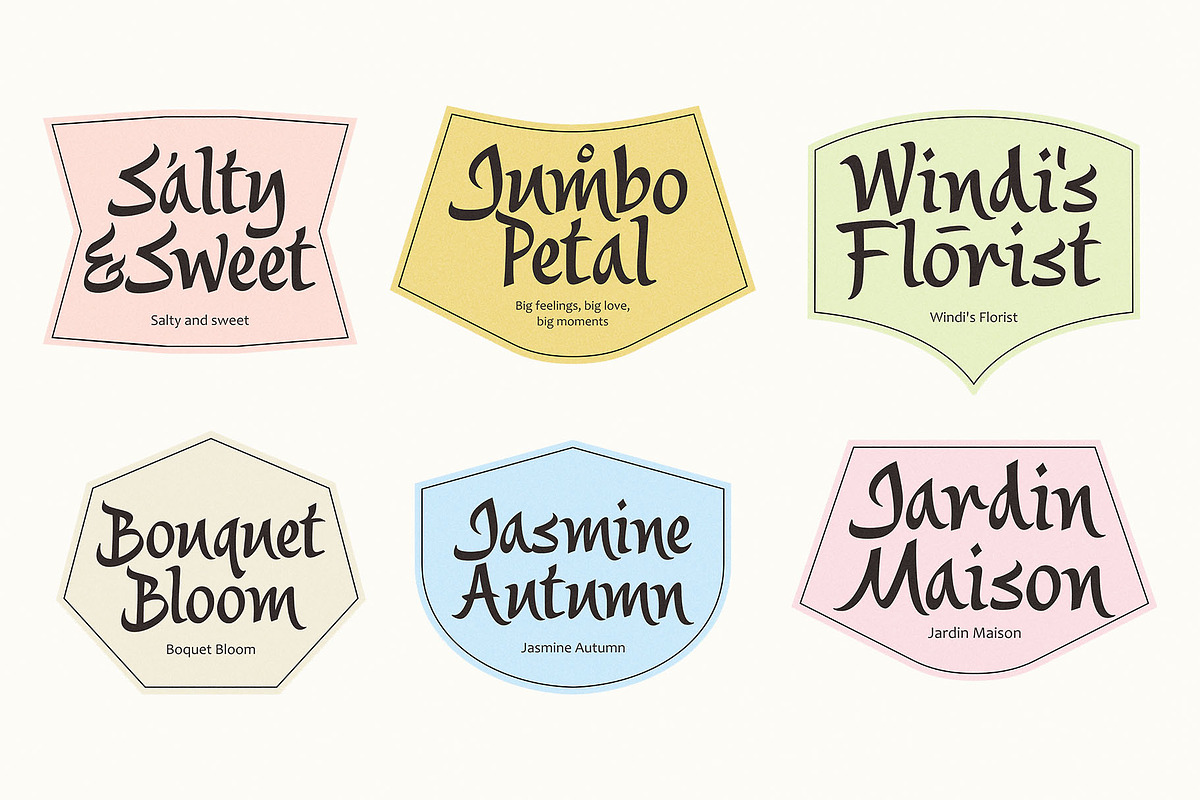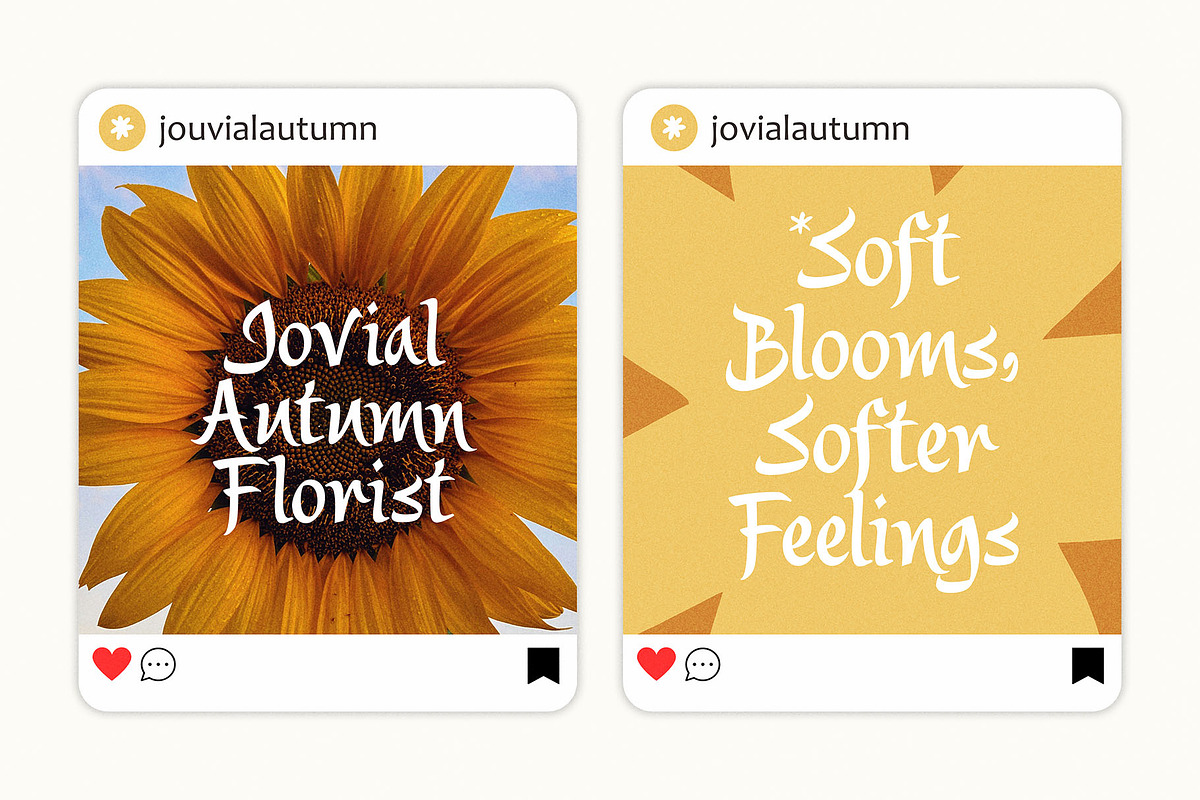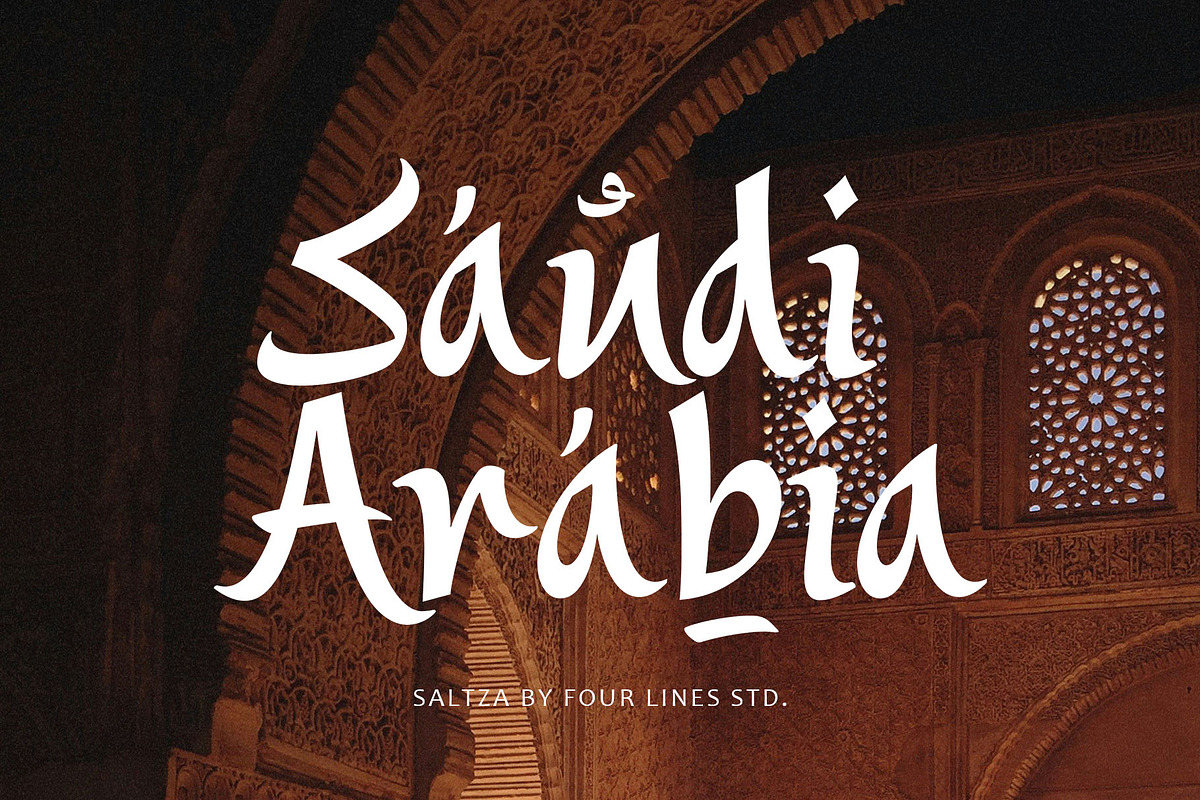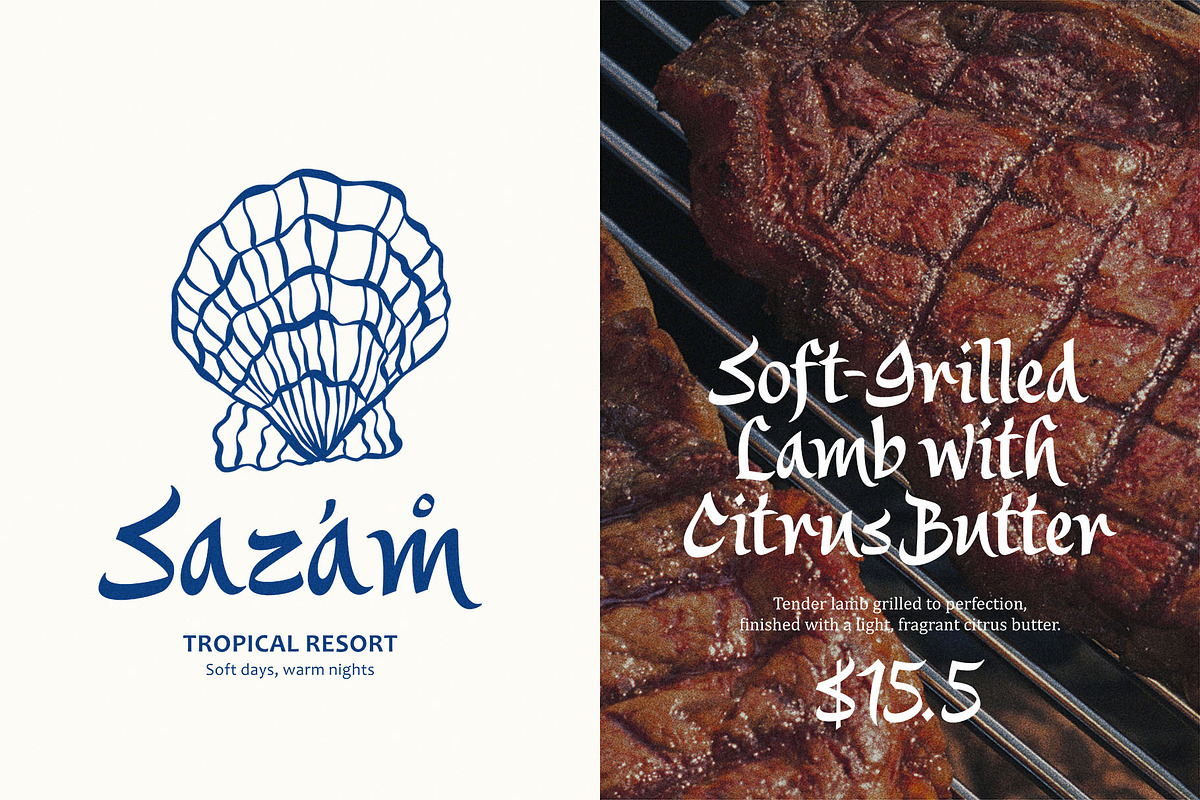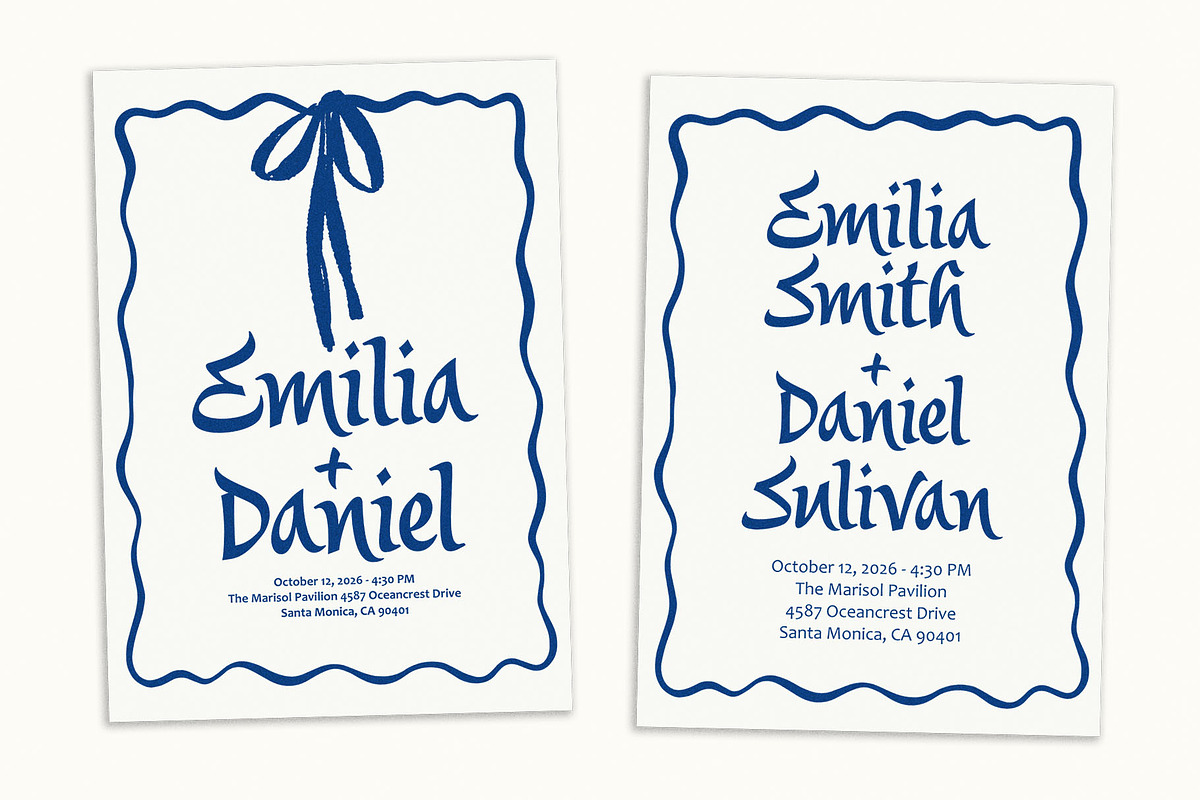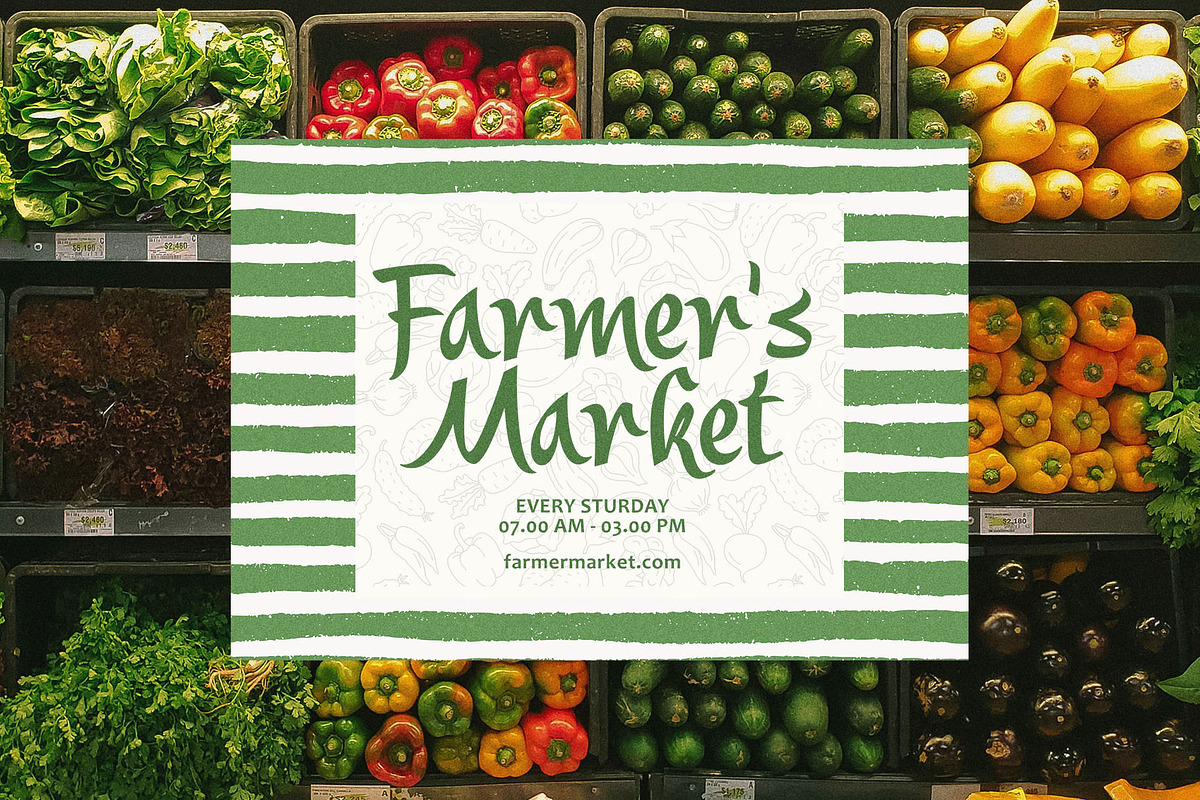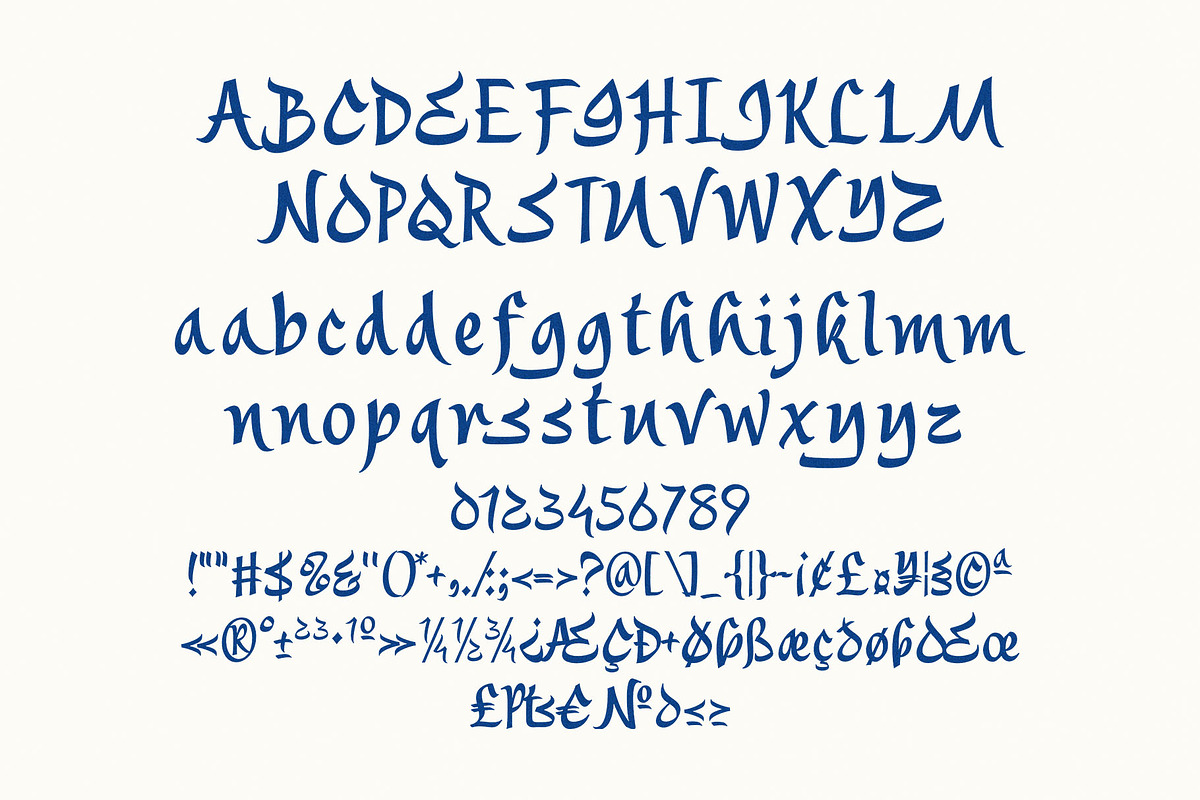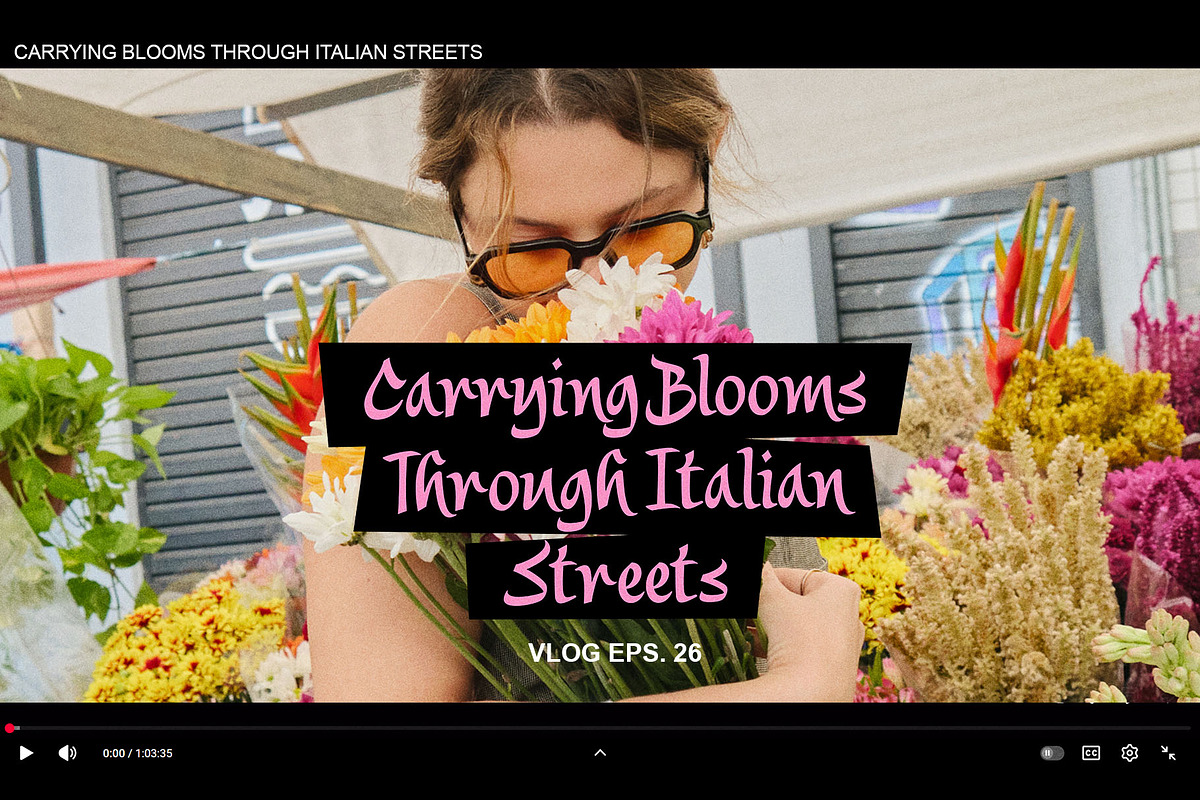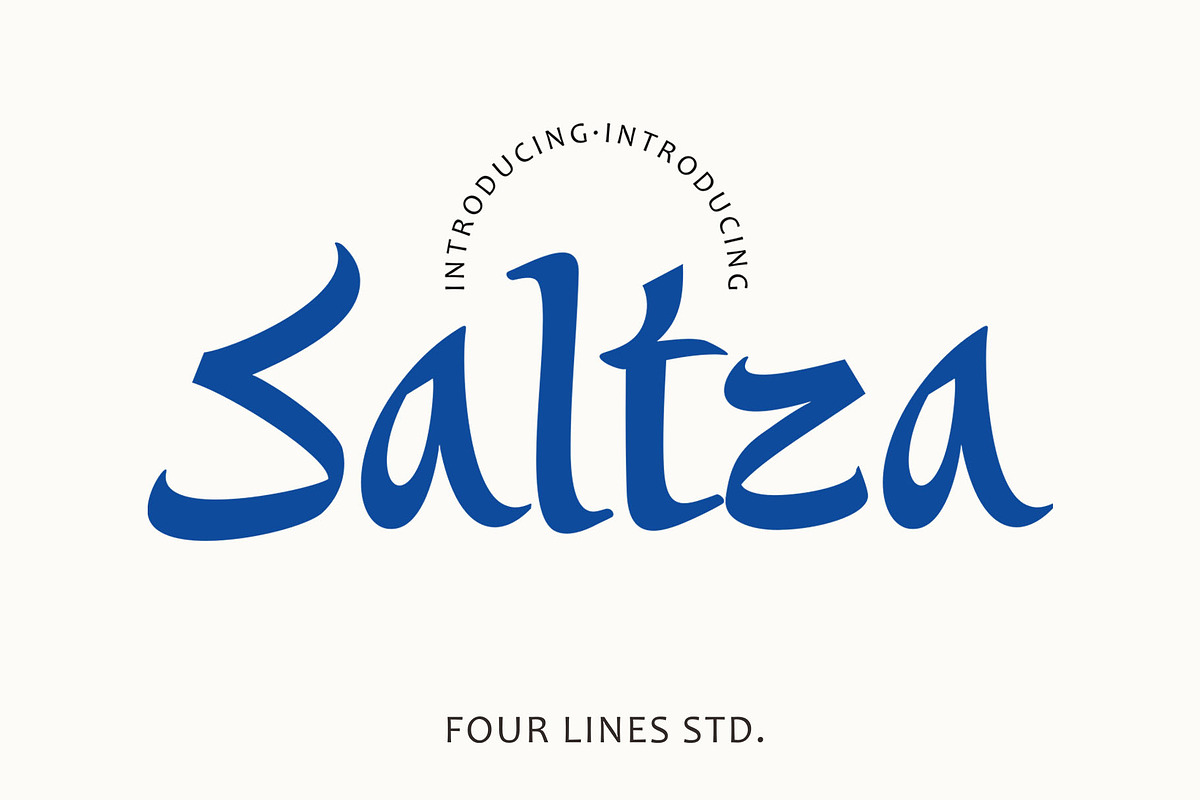
Saltza – A Decorative Handcrafted
Saltza is a decorative handcrafted display typeface featuring organic curves, soft terminals, and expressive proportions. Designed to feel warm, friendly, and approachable, it brings a human touch to every letterform. Saltza adds character without being overwhelming, making it perfect for designs that want to feel expressive, welcoming, and visually memorable. This typeface is ideal for display use such as branding, headlines, packaging, posters, editorial highlights, and lifestyle visuals that seek a cheerful and personable tone.